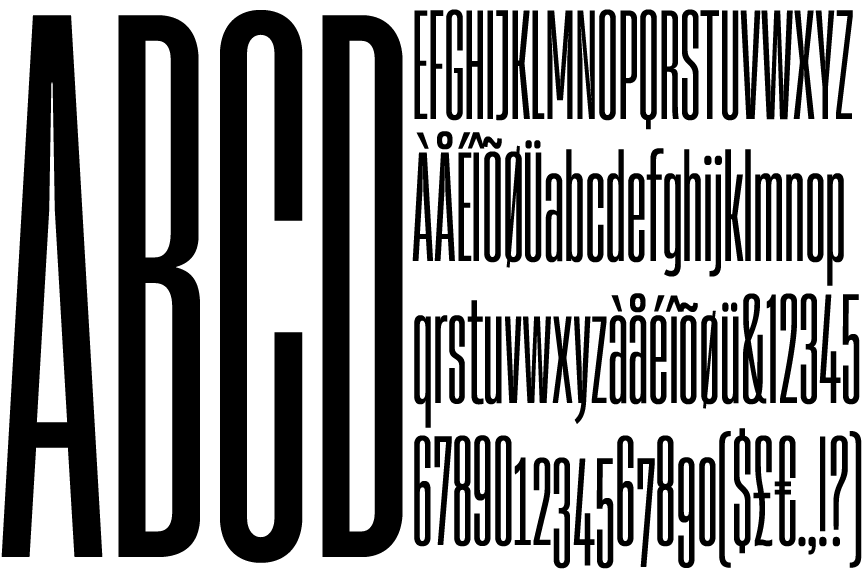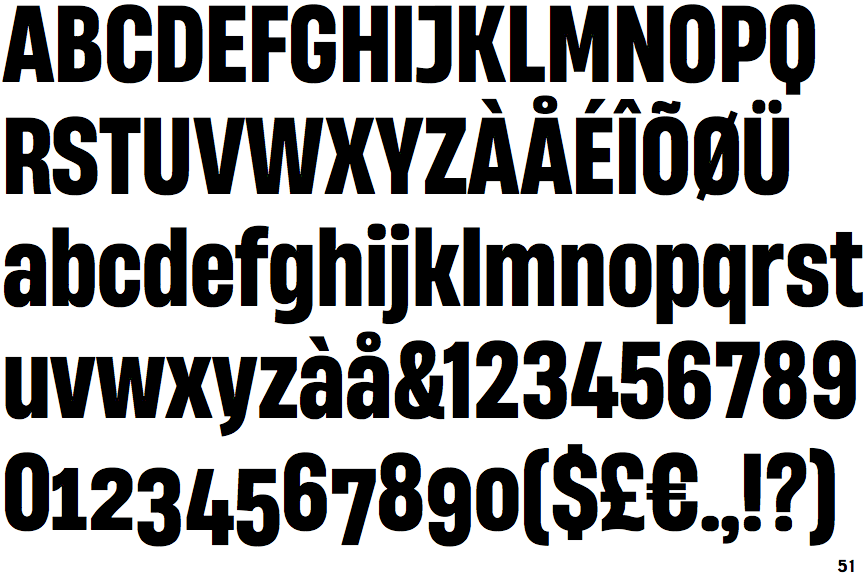
Heading Now Font
Heading Now Font - Heading now is a sans serif font family with 112 font files in various weights and. Each heading now font includes over 1100 characters with coverage for 200+.
Heading Now Font Family from Zetafonts
Heading Now Is A Sans Serif Font Family With 112 Font Files In Various Weights And.
Each heading now font includes over 1100 characters with coverage for 200+.